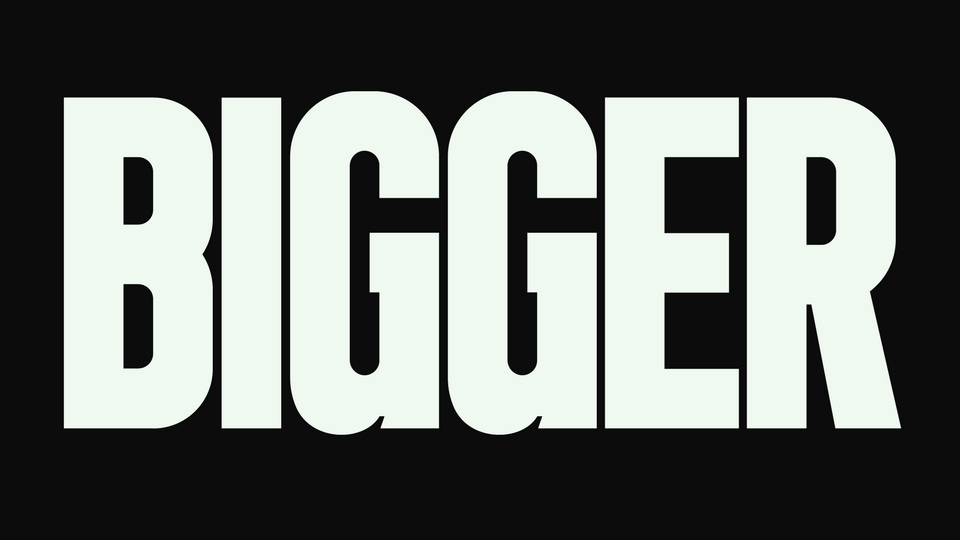
Download Bigger Display font, a condensed display typeface designed to put an end to all discussions about display fonts! Inspired by PangramPangram’s Formula and Helvetica Condensed, it’s perfect when you need a quick and bold headline.
Designer: Thunder Studio